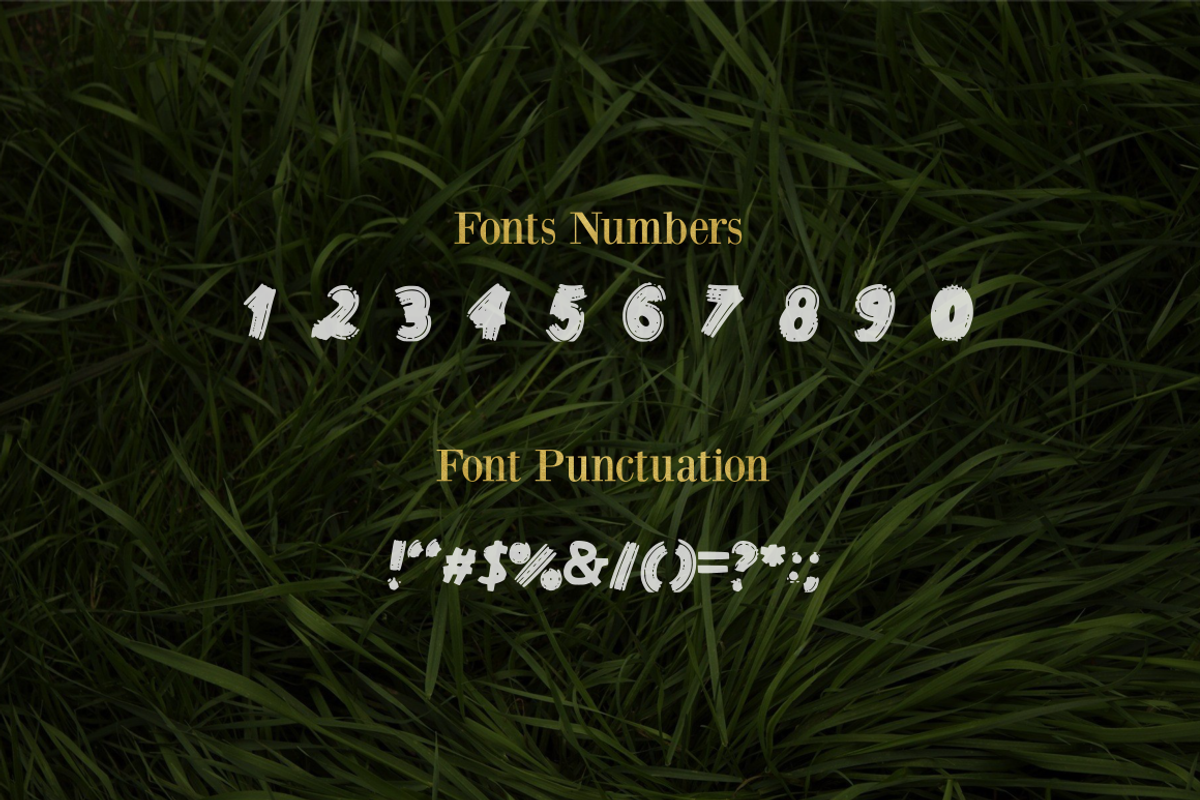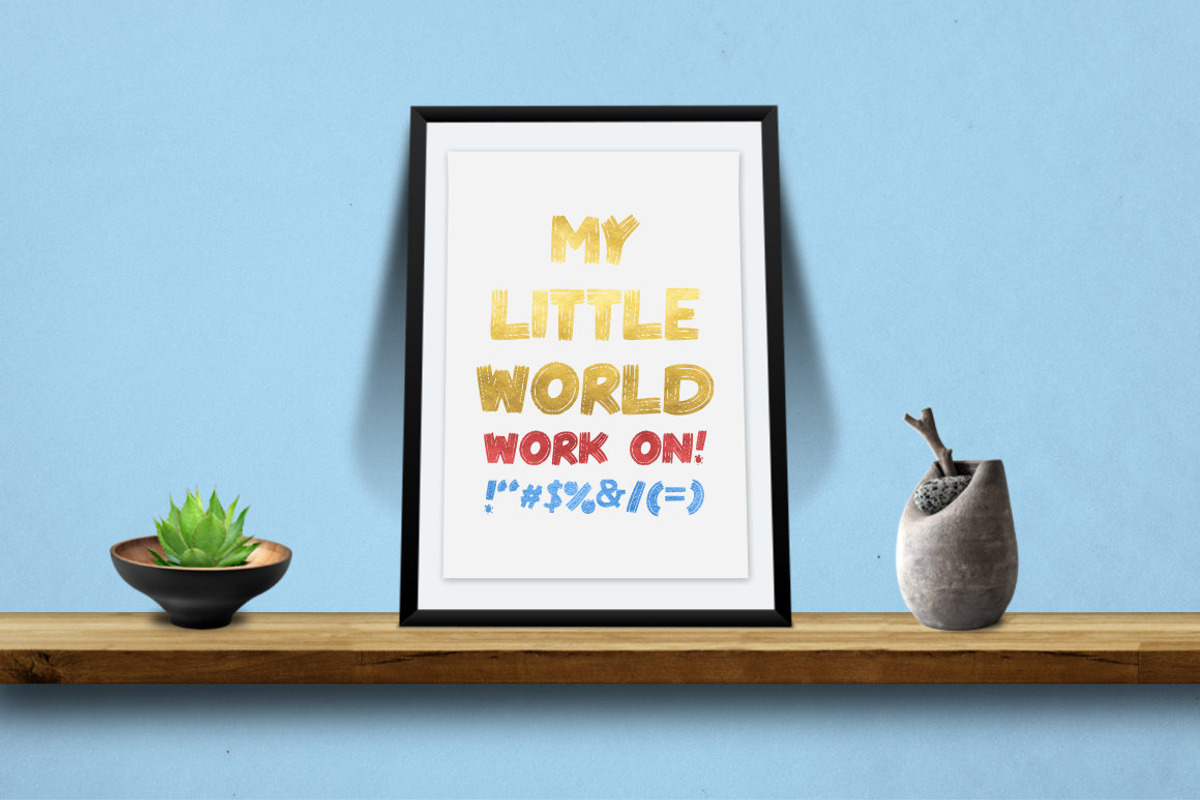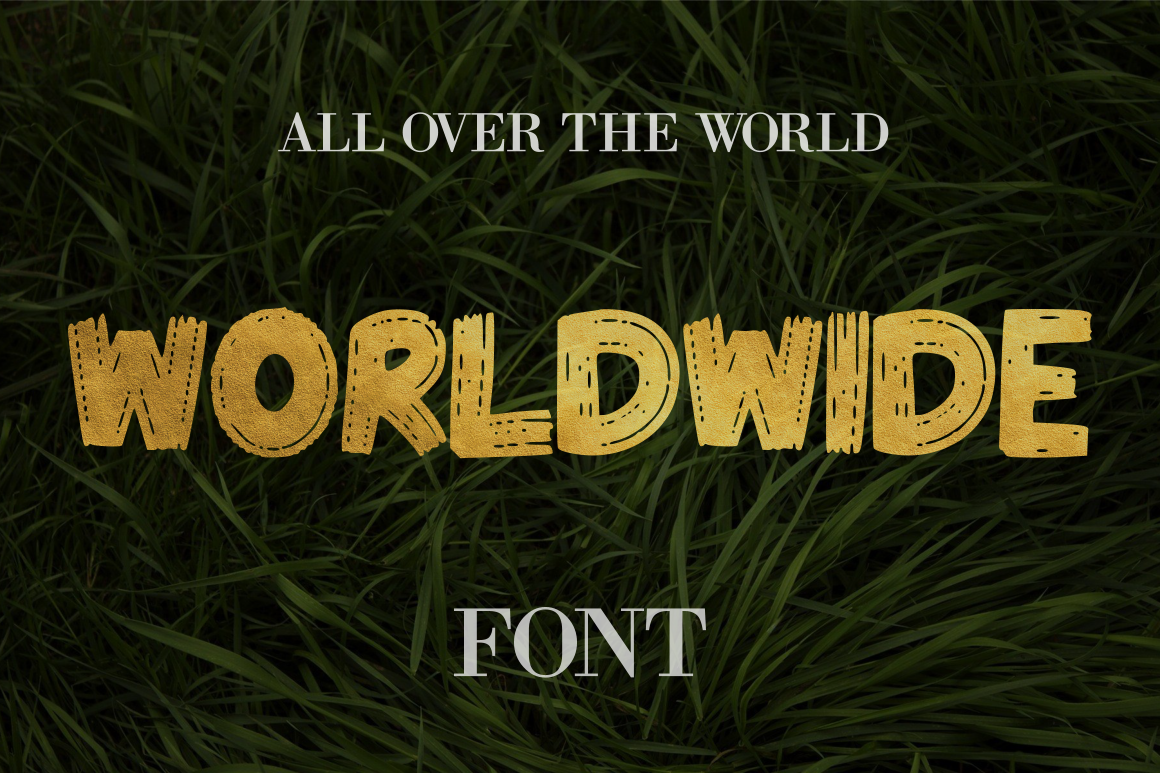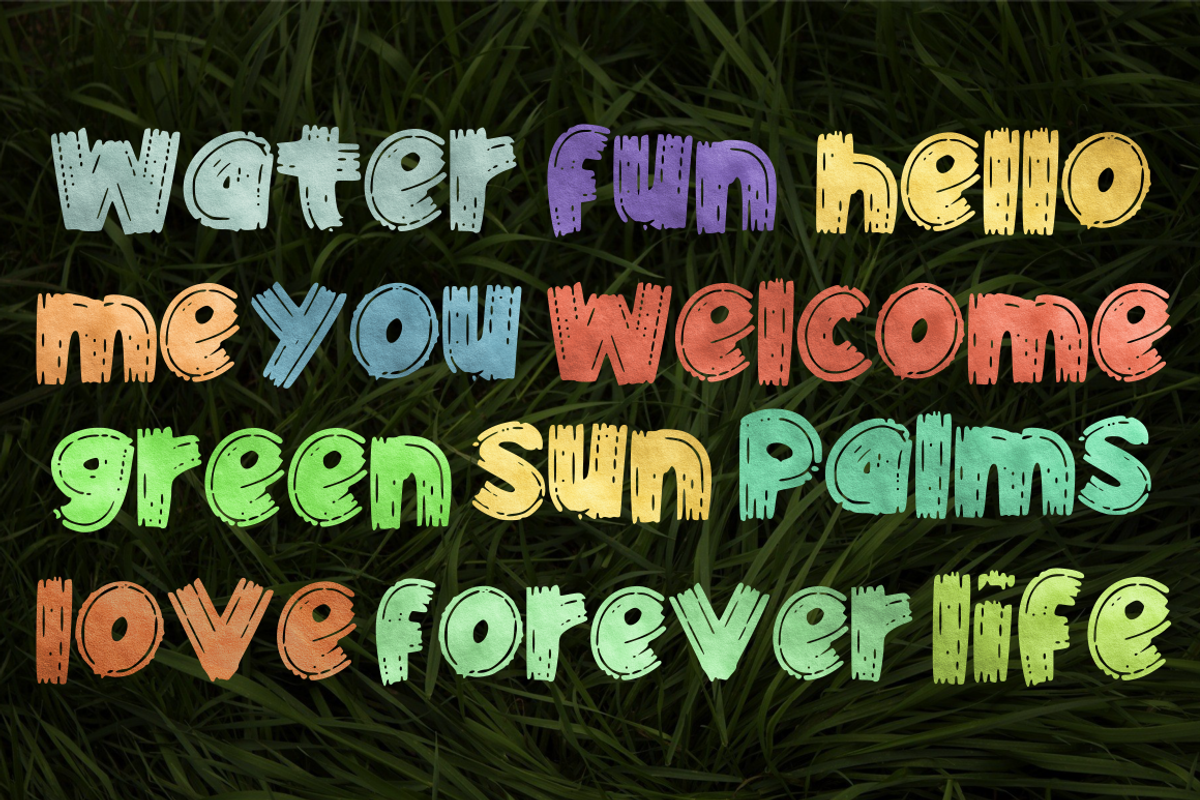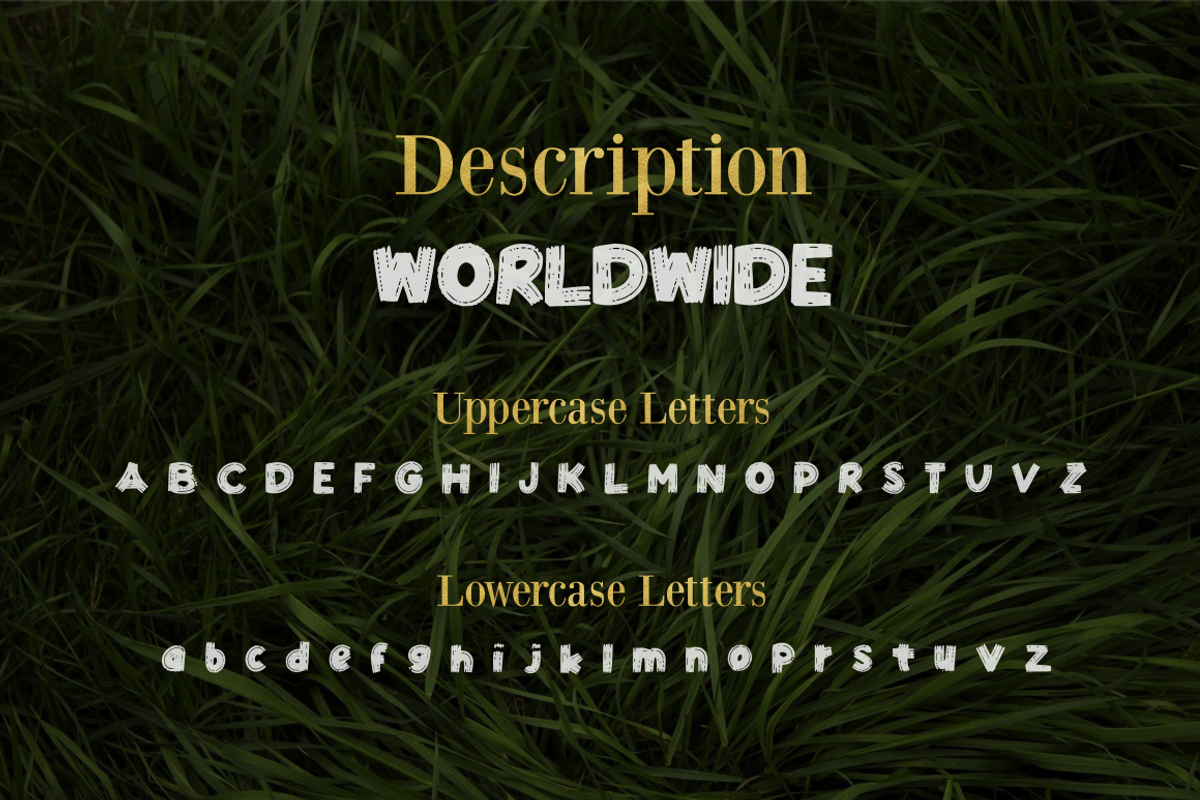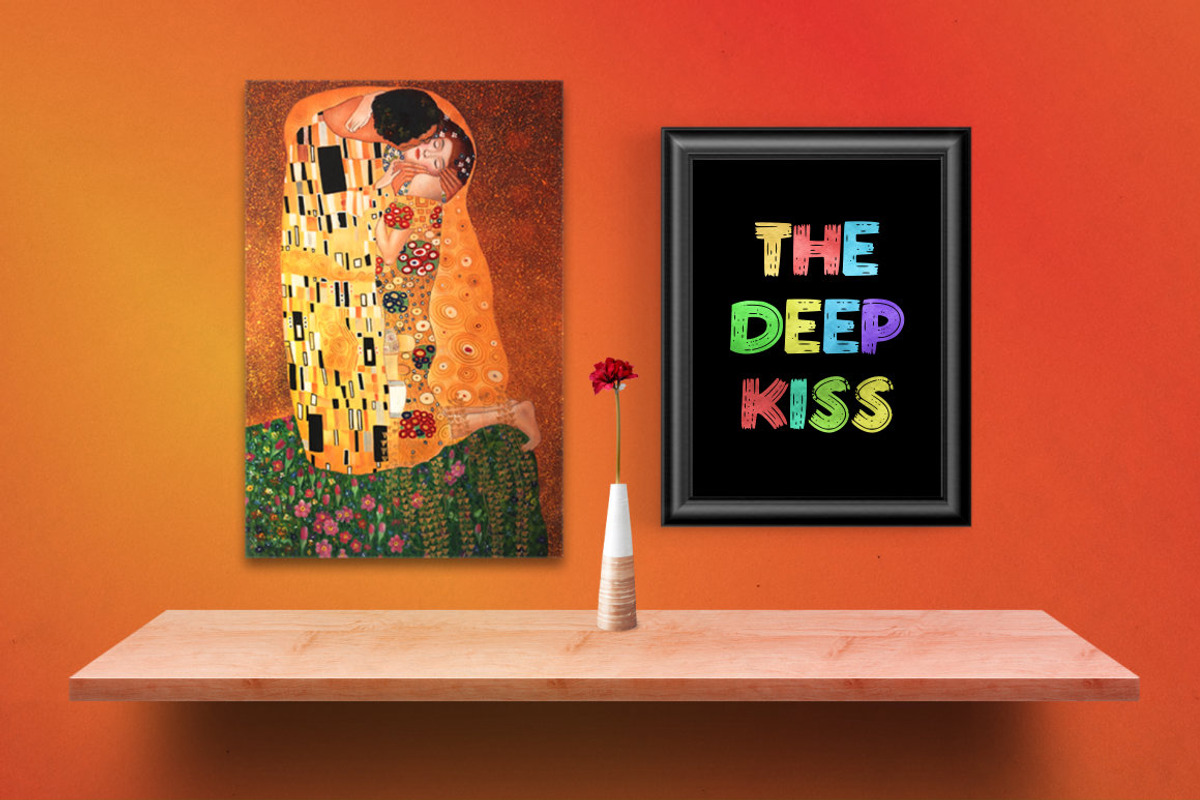
Worldwide (Superhero) Font
Description: Here we are with a fresh new Worldwide (Superhero) Font. Created with love, passion, time and creativity. The Worldwide (Superhero) Font is an awesome font for any kind of design work. Use it for invitations, logos, greeting cards, t-shirts, artist names, business main logo or any suitable design that you want to create. Have fun and explore your creativity in all areas of creation.
- uppercase
- lowercase
- numeral
- punctuation
- bonus